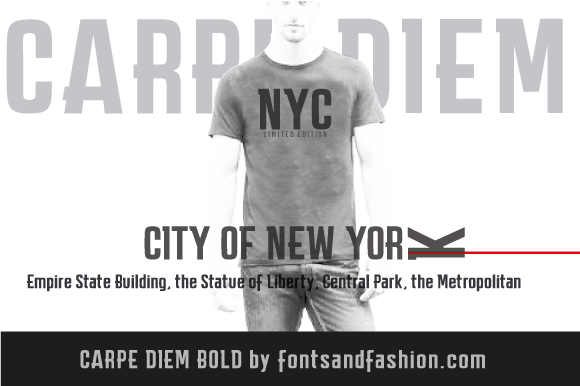
The Power of Carpe Diem Bold: Unleashing Creative Potential
I’ll never forget the moment I stumbled upon the perfect font for a client’s branding project. I had been searching for hours, trying out different fonts, but nothing seemed to fit the vibe I was going for. That’s when I discovered Carpe Diem Bold, a modern and linear font that instantly caught my attention. With its strong character and high readability, I knew I had found the one. In this article, I’ll share my experience with Carpe Diem Bold, its features, and how to make the most of it in your designs.
A Personal Review: What I Love and What I Don’t
• ✅ Modern and linear design: Carpe Diem Bold has a sleek and contemporary look that works well for a variety of design projects.
• ✅ Highly readable: The font is clear and easy to read, making it perfect for body text and headings.
• ✅ 422 Glyphs: With a large character set, you can create complex and interesting typography.
• ✅ Firm visual impact: Carpe Diem Bold makes a statement and adds a professional touch to your designs.
• ⚠️ Limited free alternatives: While Carpe Diem Bold is a great font, finding free alternatives with similar features can be challenging.
• ⚠️ May not work well for very small text: Due to its bold nature, Carpe Diem Bold might not be the best choice for very small text or captions.
4. Experiment with OpenType features, such as ligatures and stylistic alternates, to add visual interest to your text.
The Story Behind Carpe Diem Bold
Carpe Diem Bold is part of the Carpe Diem font family, designed with the goal of creating a versatile and highly readable font for a wide range of design applications. The font’s creator aimed to craft a font that would be both modern and timeless, with a strong character that would make a statement in any design. With its 422 glyphs and OpenType features, Carpe Diem Bold is the perfect choice for designers looking for a reliable and stylish font.
Q: What is the Carpe Diem font family?
A: The Carpe Diem font family is a collection of fonts designed to work together seamlessly, with Carpe Diem Bold being the core font.
Q: Is Carpe Diem Bold suitable for body text?
A: While Carpe Diem Bold is highly readable, it may not be the best choice for long body text due to its bold nature.
Q: Can I use Carpe Diem Bold with other fonts from the same family?
A: Yes, Carpe Diem Bold pairs well with other fonts from the Carpe Diem family, creating a cohesive and harmonious design.